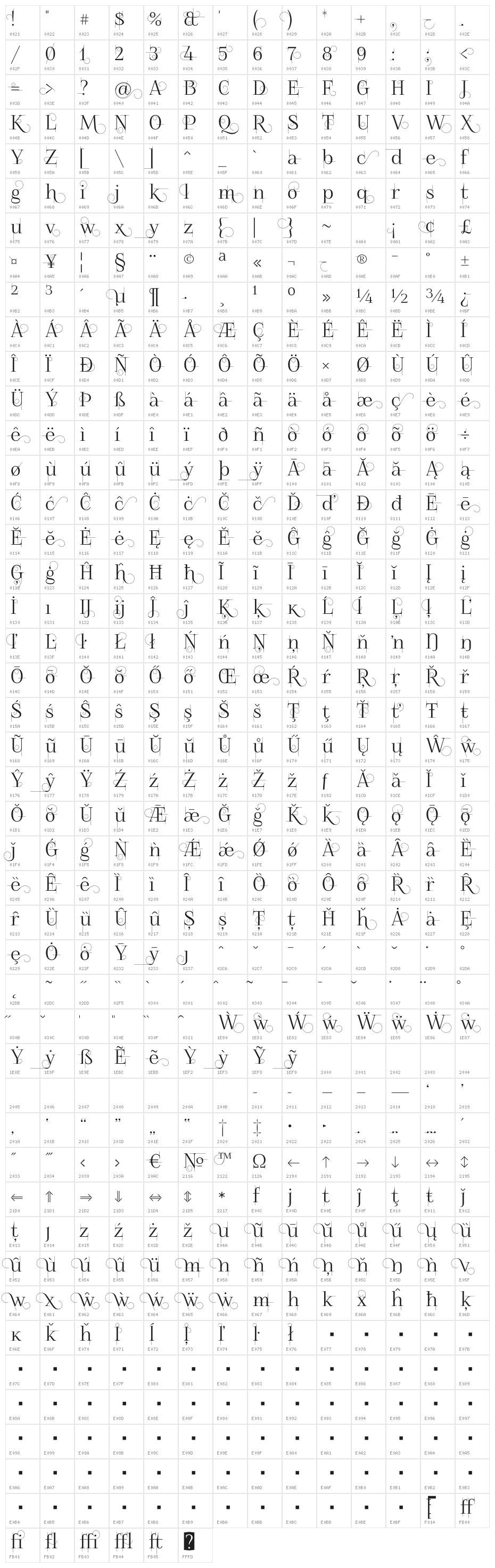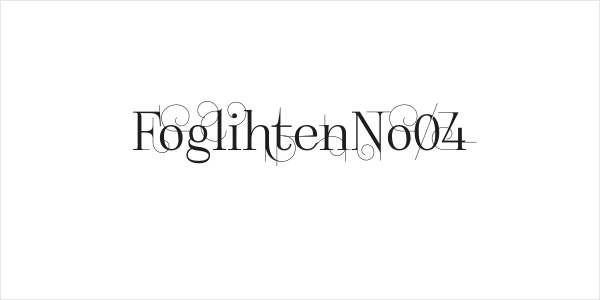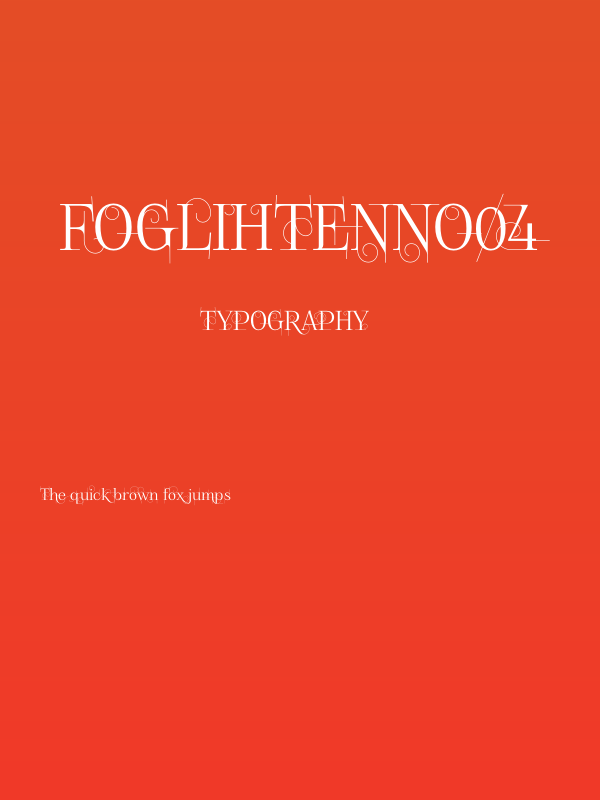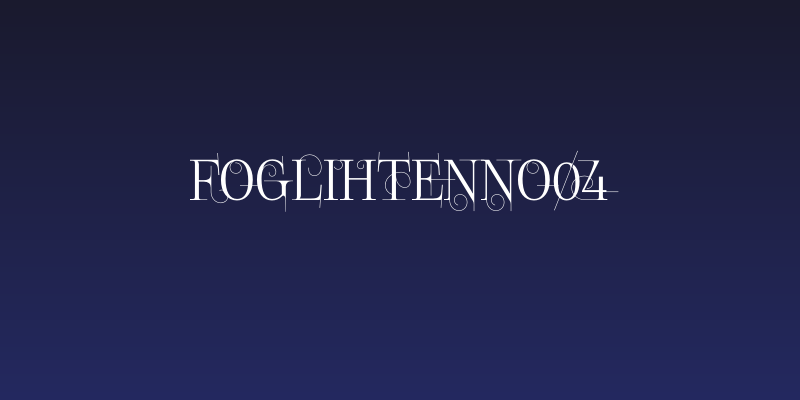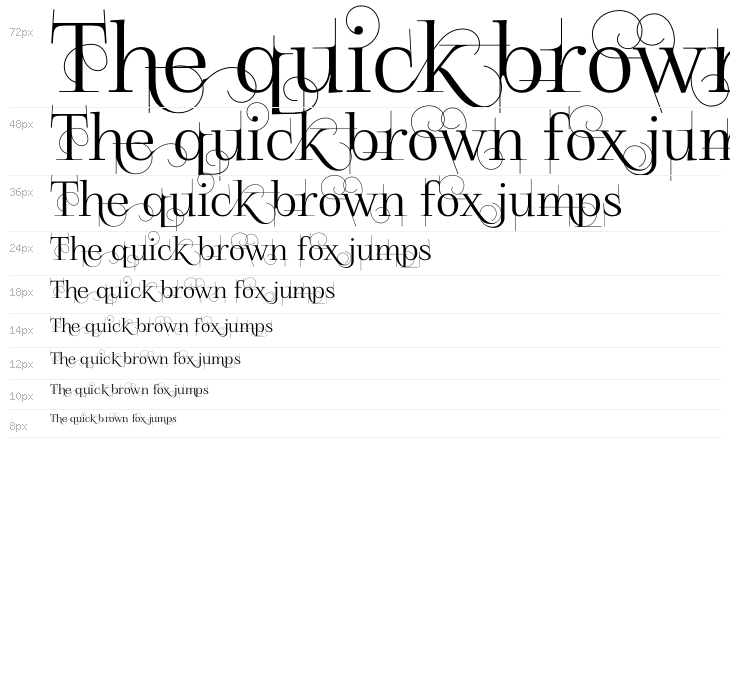
FoglihtenNo04 Font
FoglihtenNo04 Description
This font is an elegant and decorative typeface characterized by its intricate swirls and flourishes. The uppercase letters are particularly ornate, with extended serifs and elaborate curves that give a sense of sophistication and artistry. The lowercase letters maintain a balance between readability and decorative elements, making them suitable for both display and text purposes. Numbers and special characters follow the same ornate style, ensuring consistency across all glyphs. The overall design is reminiscent of classic calligraphy, yet it maintains a modern twist with its clean lines and precise curves.
| Proposed Projects | Ideal for wedding invitations, luxury branding, high-end product packaging, and artistic posters. |